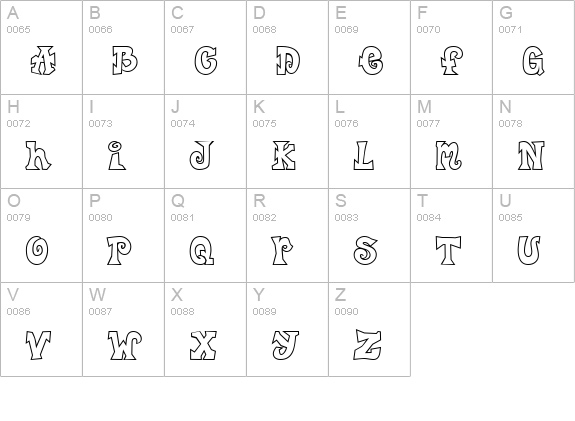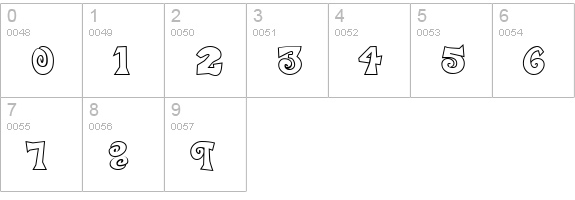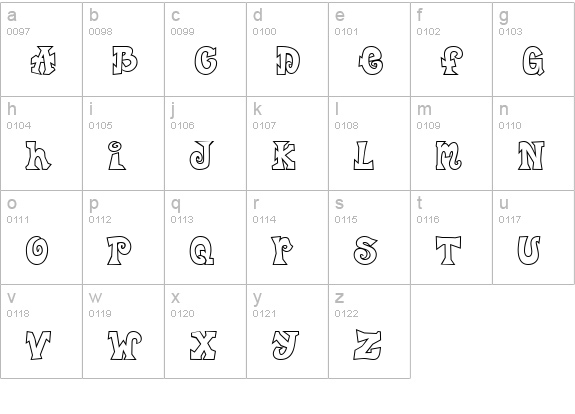
CK Freestyle Font Details
CK Freestyle is a bold and dynamic font that exudes creativity and energy. With its playful curves and modern aesthetic, this font is perfect for projects that require a touch of fun and uniqueness. Whether you are designing posters, logos, or social media graphics, CK Freestyle will make your text stand out and leave a lasting impression. This versatile font is freely available to download at FontsMarket.com, making it accessible to anyone looking to add a touch of flair to their designs. Its sleek lines and stylish appeal make it a popular choice among designers who want to inject a sense of spontaneity and freedom into their work. CK Freestyle is the perfect choice for those who want to break away from traditional fonts and embrace a more casual and relaxed style.